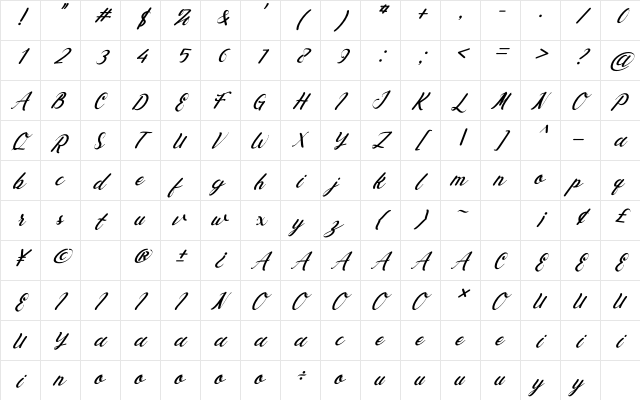
Ayunda Italic Free Font
Ayunda Italic
Designer: Heru Utama Putra
Design Context for Ayunda
Ayunda is a composed and adaptable typeface that performs quietly and consistently across a wide range of design contexts. The slanted form adds forward momentum and visual energy.
Pro Tip: Use Ayunda for emphasis, pull quotes, and subheadings where its slanted energy can add rhythm to the layout.